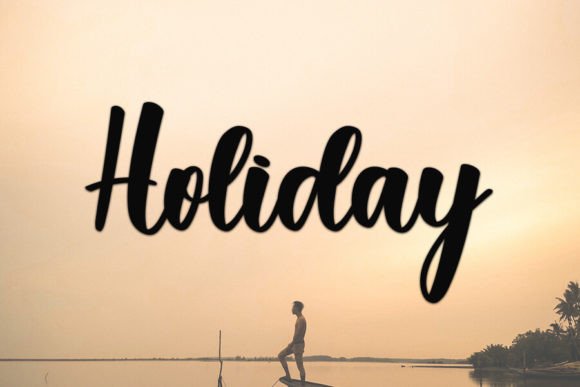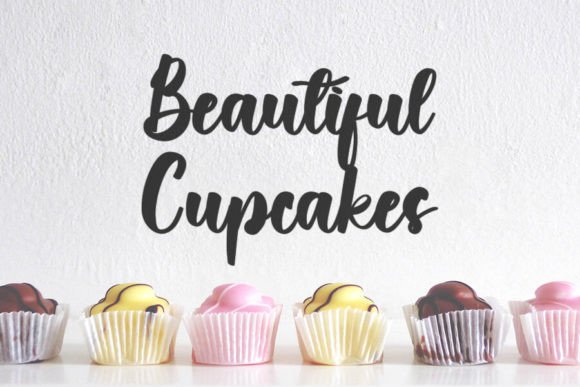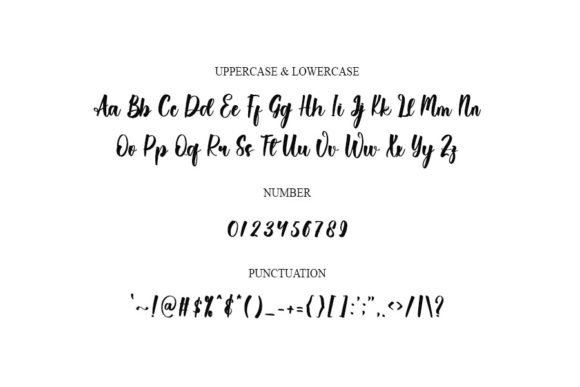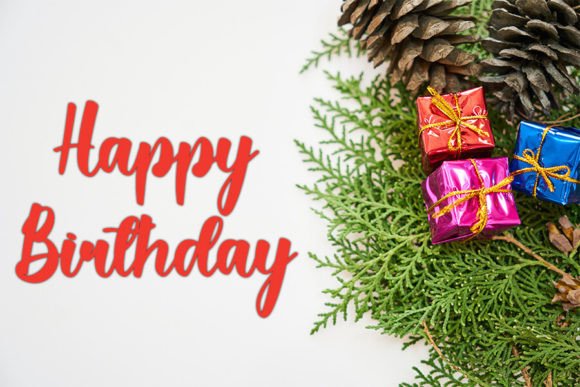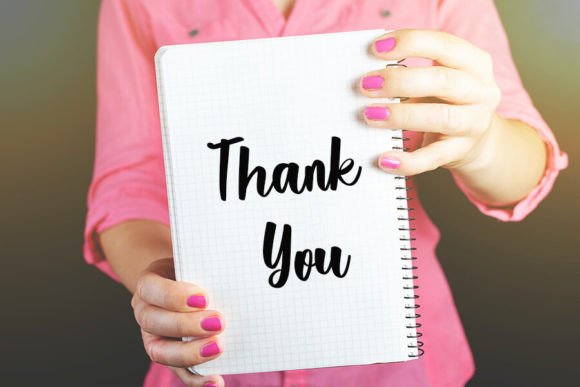
Introduction to Nature Explorer Font
Nature Explorer is a fun handwritten font carefully created with a touch of elegance.
Key Features of Nature Explorer Font
Why Choose Nature Explorer Font?
Nature Explorer Font offers exceptional quality and versatility, making it a valuable addition to your design toolkit. Whether you’re creating for personal projects or commercial use, Nature Explorer Font delivers professional results.